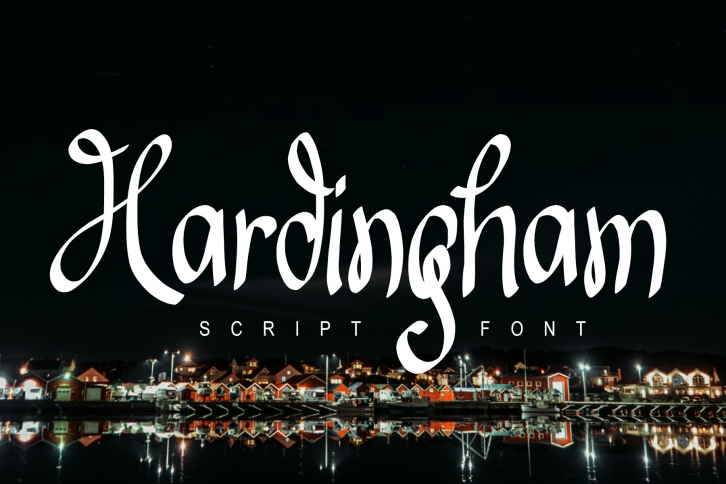
Hardingham is a sweet, casual and trendy looking handwritten font. You can use this font on wedding invitations, thank you cards, quotes, greeting cards, logos, business cards and every other design which needs a simple and fun touch.